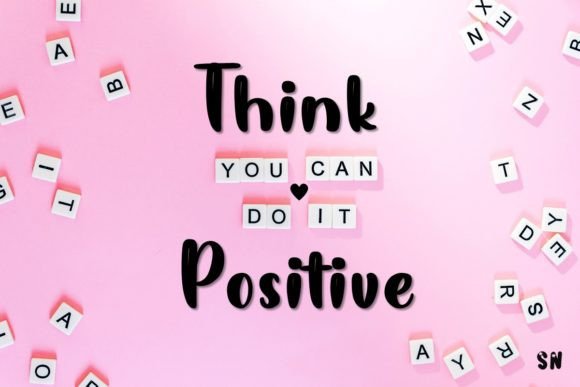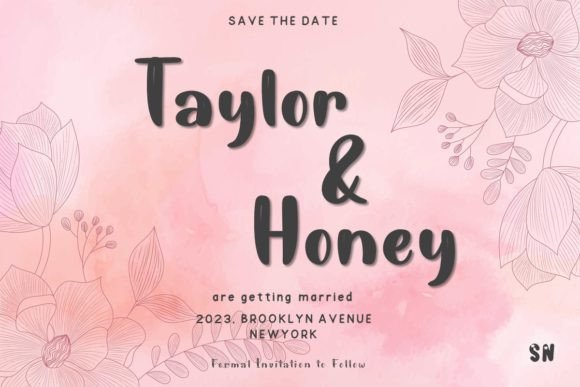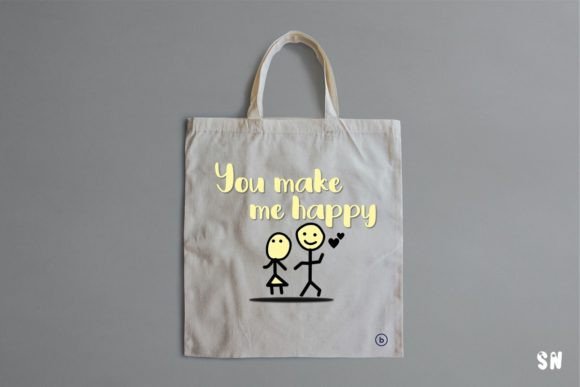
Introduction to Maylani Font
Maylani is a new handwriting font with a smooth shape and has a calm and pleasant impression.
With a cute style it looks stunning on wedding invitations, quotes, greeting cards, eye-catching social media posts, thank you cards, and much more other design .
Why Choose Maylani Font?